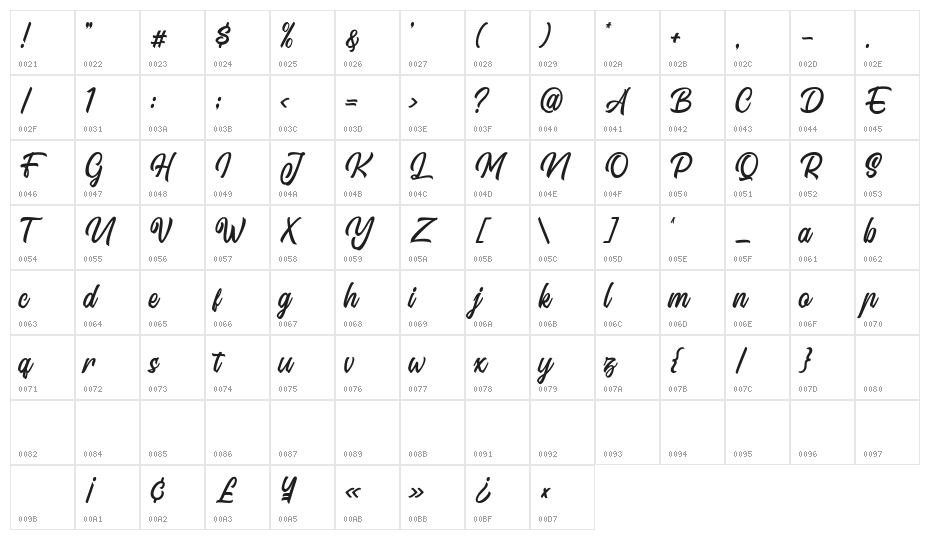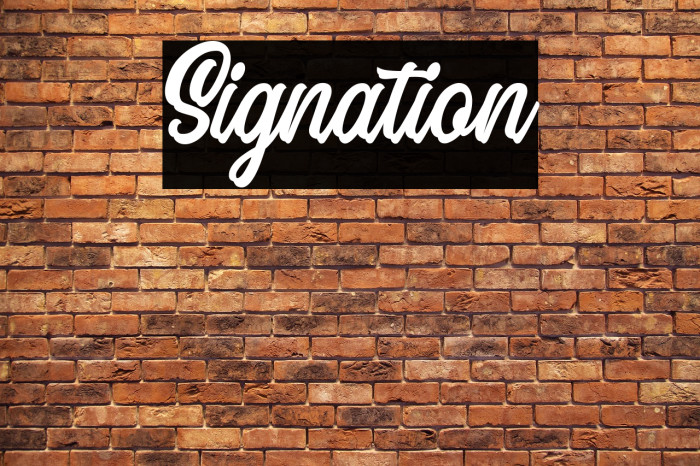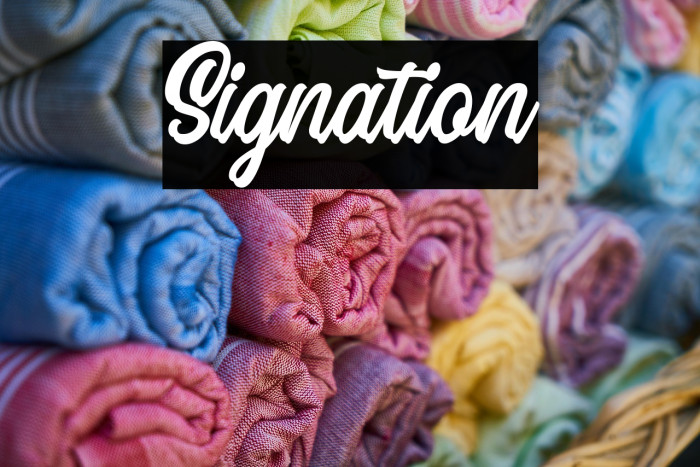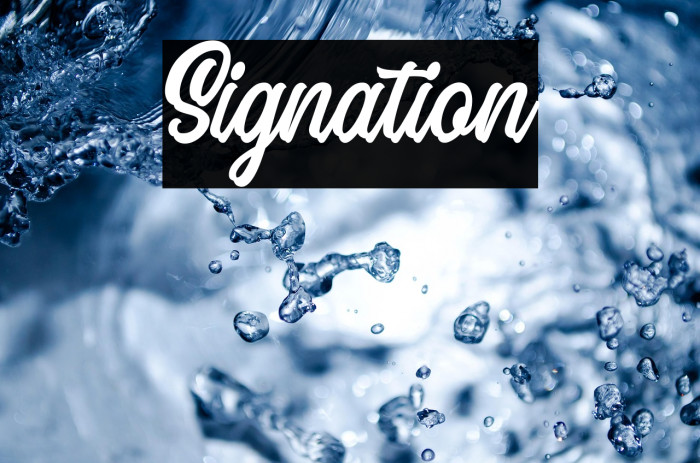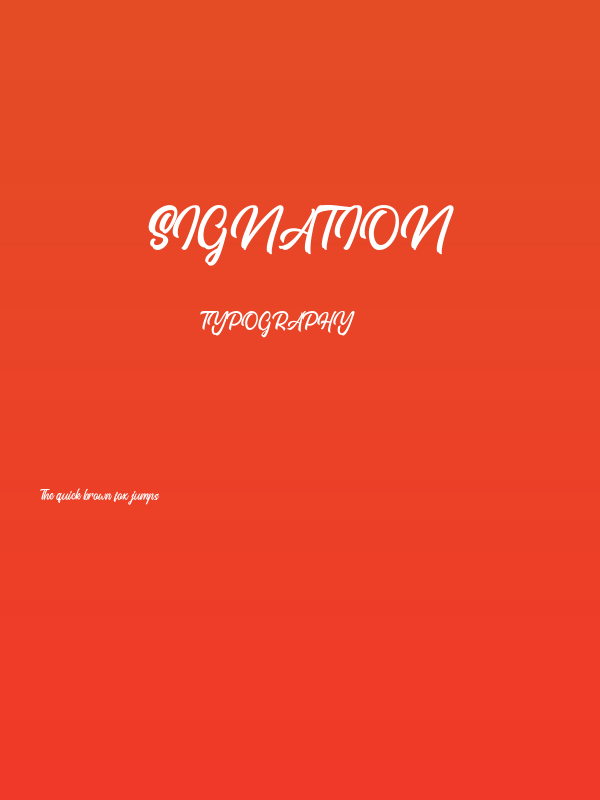
Signation Font
Signation Description
This font exudes a stylish and elegant script design, characterized by its fluid and connected letterforms. The uppercase letters are bold and sweeping, with a sense of movement that suggests a handwritten quality. The lowercase letters maintain this fluidity, offering a harmonious blend of curves and loops. The numerals and special characters are crafted with the same attention to detail, ensuring consistency across the typeface. This font is ideal for projects that require a personal touch, such as invitations, greeting cards, or branding materials. Its decorative nature makes it stand out, while the clear legibility ensures it remains functional.
ContrastMedium
Overall StyleDecorative
Use CaseLogos, Headlines, Invitations
Proposed ProjectsIdeal for invitations, greeting cards, branding materials, and any project requiring a personal touch.